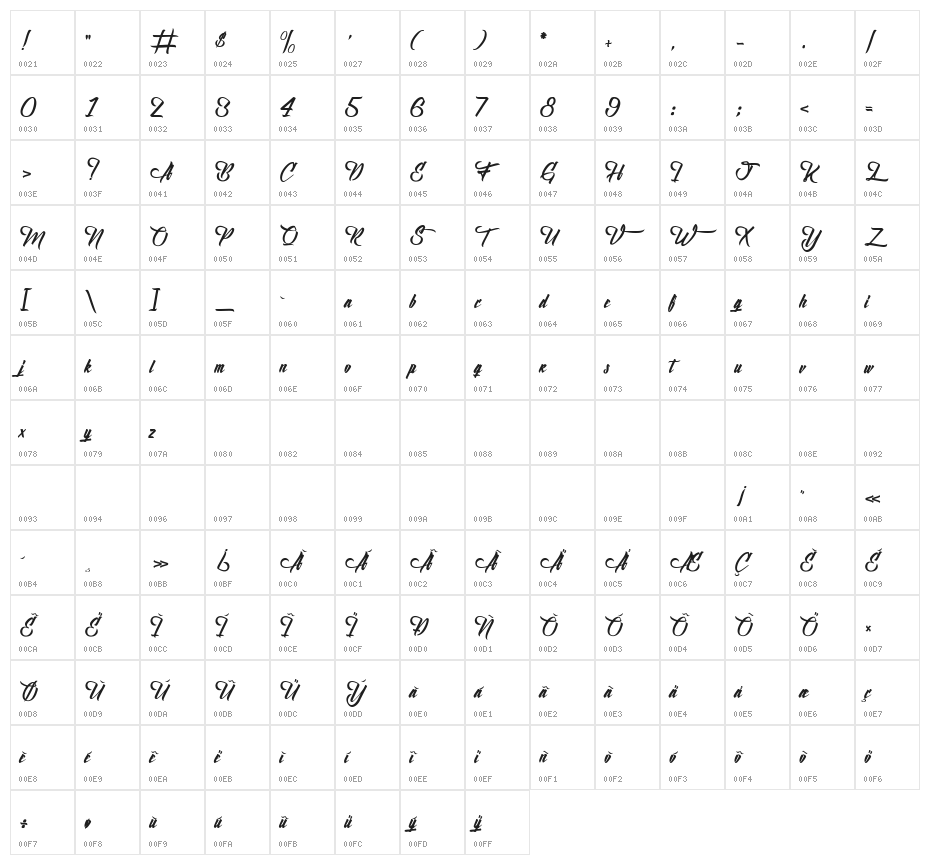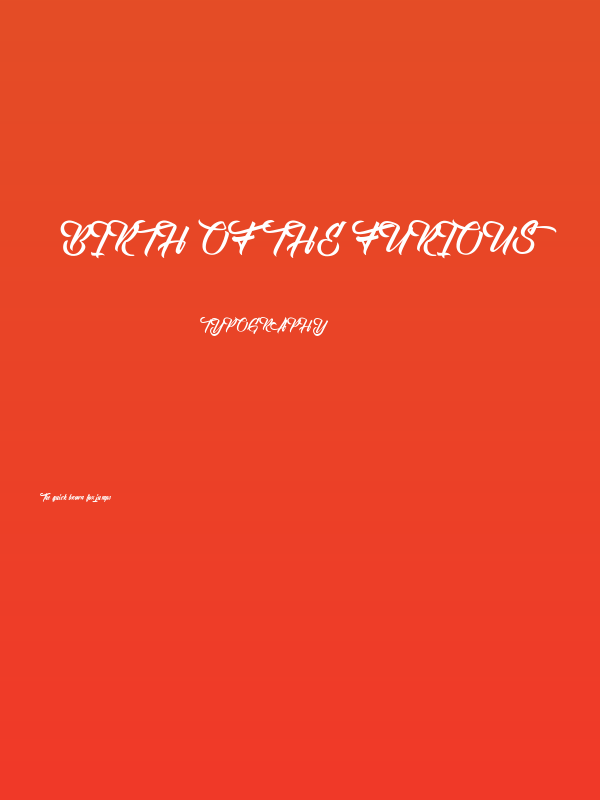
Birth of the Furious Font
Birth of the Furious Description
This font exhibits a dynamic and energetic script style, characterized by its flowing, cursive letterforms. The uppercase letters are bold and sweeping, with dramatic flourishes that add a sense of movement and flair. The lowercase letters maintain a consistent rhythm, with smooth connections between characters that enhance readability. The numerals are distinct yet harmonious with the overall style, featuring slight slants and curves. Special characters are elegantly integrated, maintaining the font's cohesive aesthetic. This font is ideal for projects that require a touch of elegance and sophistication, such as invitations, branding, or editorial design.